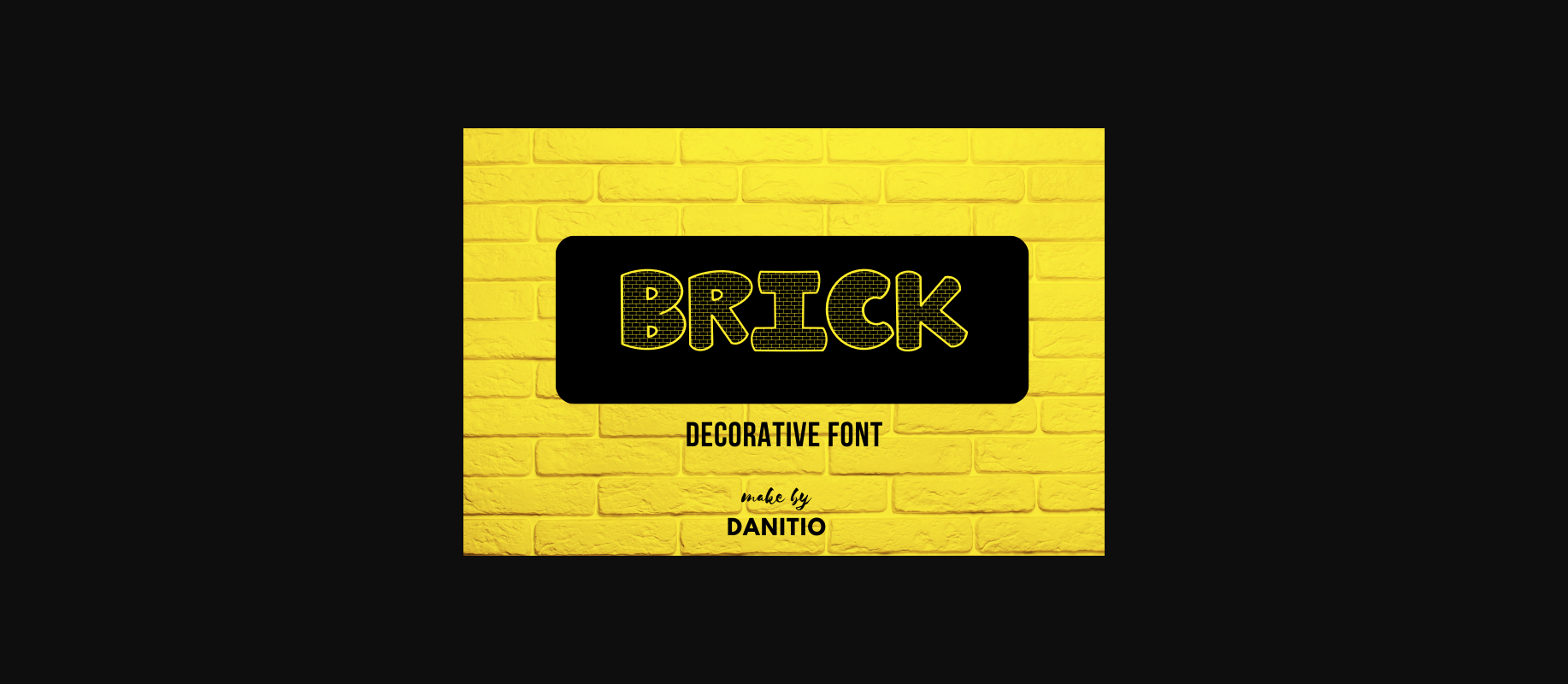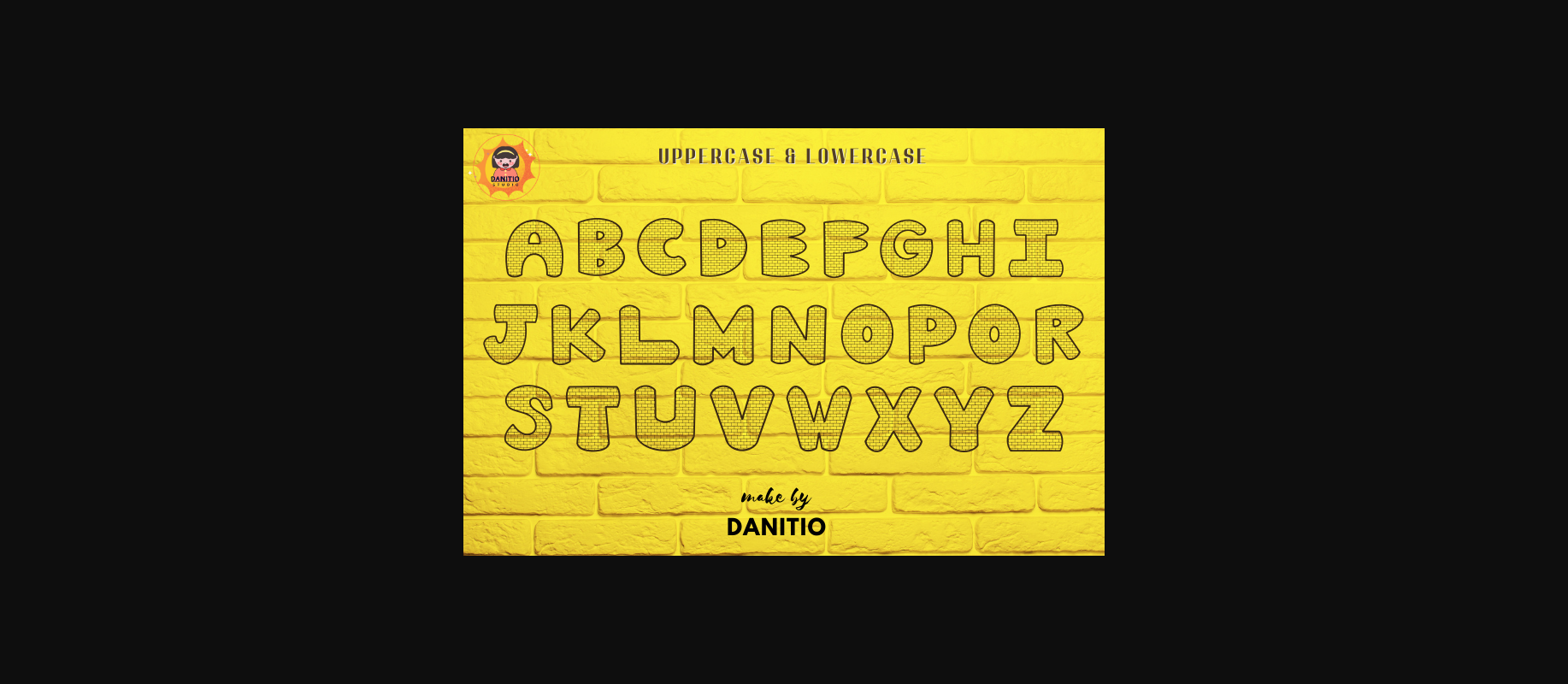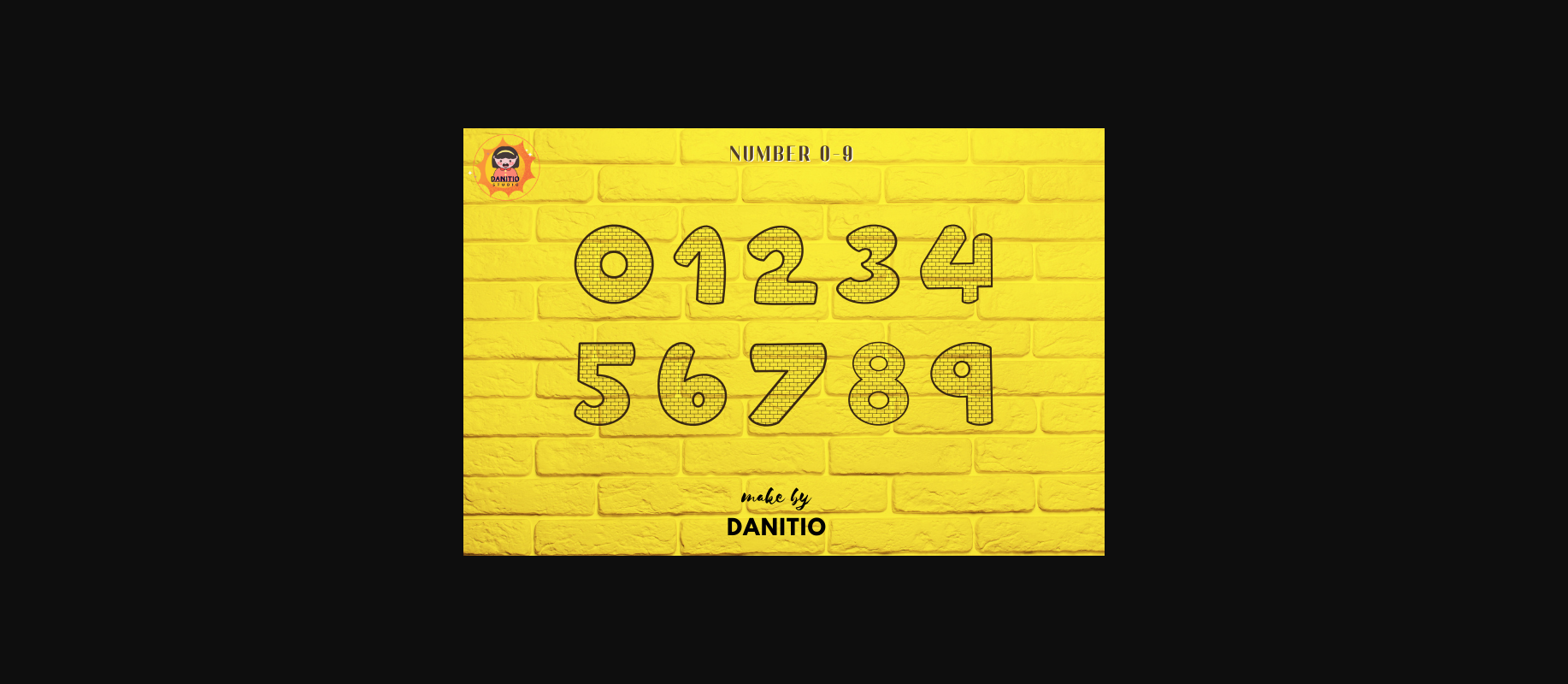
About Brick Font
Brick is a decorative font. The appearance is like a brick wall, which is cool, fun, and unique.
Whether you’re using it for crafts, digital design, presentations, or making greeting cards, this font has the potential to become your favorite go-to font, no matter the occasion!